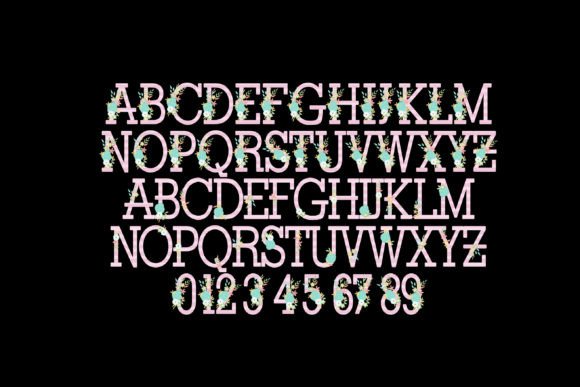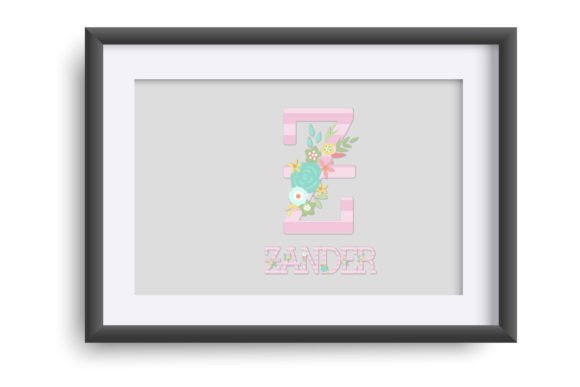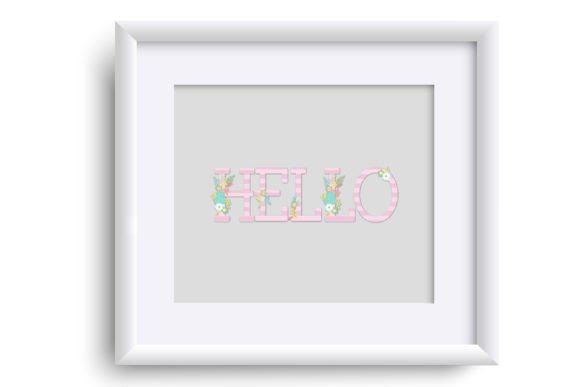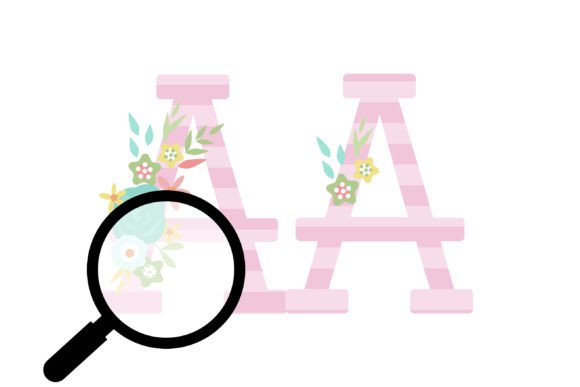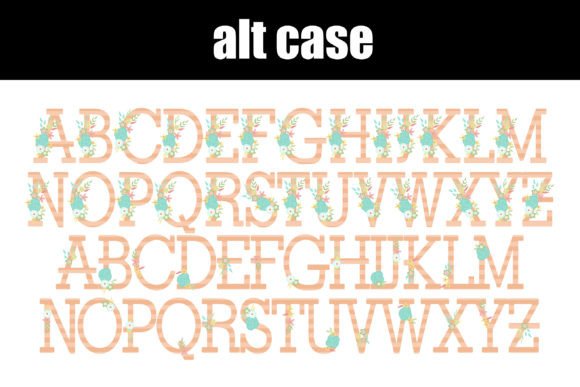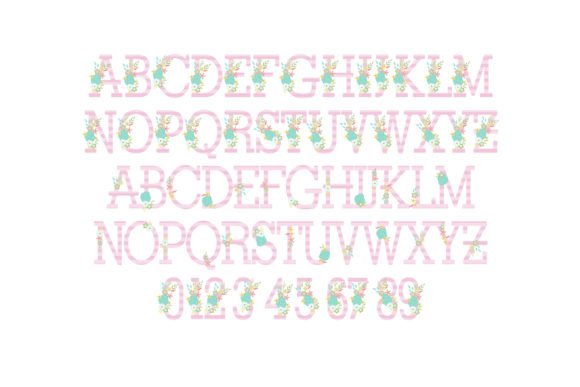
Introducing April Bloom Font: A Beautiful Full-Color Font for Designers and Crafters
Are you looking for a unique and creative way to add a touch of personality to your designs? Look no further than the April Bloom Font, a stunning full-color font that features beautiful florals on a striped serif font. This gorgeous font is perfect for designers and crafters who want to take their projects to the next level.
What is April Bloom Font?
April Bloom Font is a full-color font that combines a classic striped serif font with beautiful floral designs. The font features a unique and colorful design that is sure to make your projects stand out. With its full range of colors and styles, you can create anything from simple text logos to complex illustrations.
Key Features of April Bloom Font
- Full-color design: April Bloom Font features a stunning full-color design that includes beautiful florals on a striped serif font.
- Alt case with additional colors: The font also includes an alt case with additional colors that can be accessed through your system or Silhouette’s glyph map.
How to Use April Bloom Font
Benefits of Using Full-Color SVG Fonts
Full-color SVG fonts like April Bloom Font offer a range of benefits for designers and crafters. Some of the benefits include:
- Increased creativity: With a full range of colors and styles to choose from, you can create unique and complex designs that would be difficult or impossible to create with traditional fonts.
- Flexibility: Full-color SVG fonts can be used in a range of projects, from simple text logos to complex illustrations.
Tips for Using April Bloom Font
Here are a few tips for using April Bloom Font:
- Experiment with different colors and styles: With a full range of colors and styles to choose from, don’t be afraid to experiment and try new things.
- Use the font in combination with other design elements: April Bloom Font can be used in combination with other design elements, such as shapes and images, to create complex and interesting designs.
- Take advantage of the alt case: The alt case with additional colors can add an extra layer of creativity to your designs.